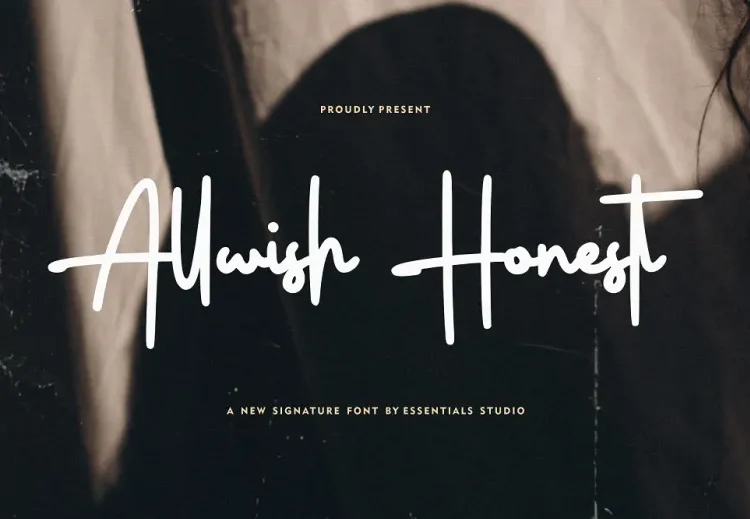
Allwish Honest Font
Allwish Honest is a graceful and strong handwritten signature font that exudes elegance and sophistication. Its refined curves and delicate strokes bring a luxurious touch to any design project, making it ideal for those looking to add a touch of class and sparkle.
This font is perfect for various applications, such as branding, logos, invitations, wedding designs, and more. Whether you’re working on a high-end project or simply want to elevate the visual appeal of your designs, Allwish Honest will provide that elegant and polished look you’re aiming for.